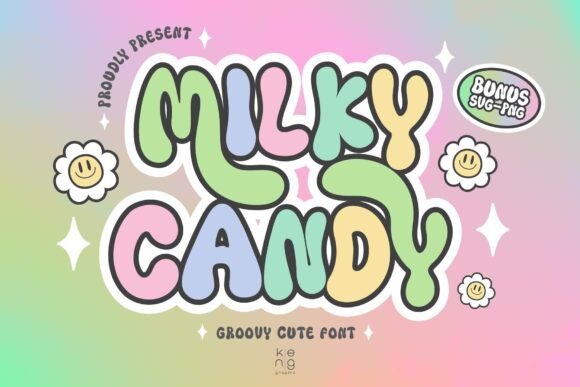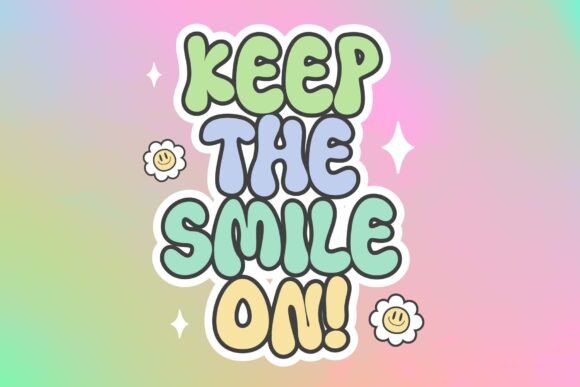
Milky Candy Font
Introducing the irresistibly charming Milky Candy Font! This exuberant display font boasts an enchanting and whimsical design that can instantly breathe life into any creation. It effortlessly embodies adorableness, making it the perfect companion for your tee-shirt designs, quirky tote bags, delightful mugs and other personal artifacts. Transform your everyday items into lively and captivating masterpieces with the unique allure of the Milky Candy Font. Express yourself creatively with this playful typographical delight!